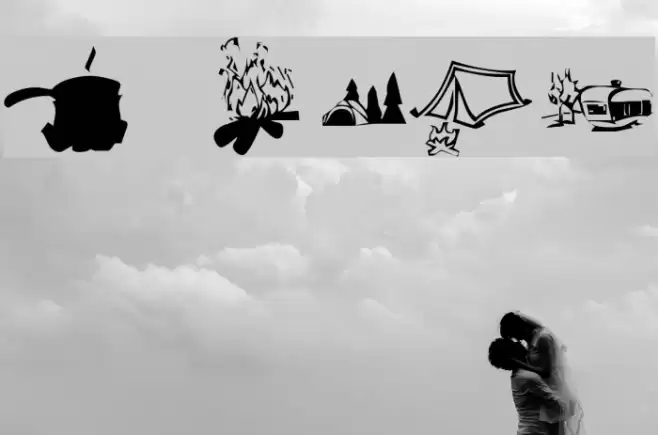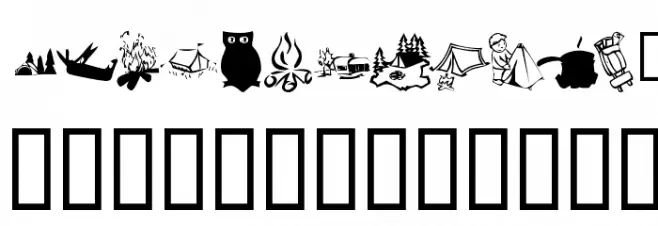
KR Camping Font
KR Camping Description
This is a decorative font featuring a series of camping-themed illustrations. Each character is represented by a unique camping-related icon, such as tents, campfires, trees, and wildlife. The icons are bold and clear, making them easily recognizable and suitable for thematic designs. The style is playful and illustrative, capturing the essence of outdoor adventures and nature. This font is perfect for projects that aim to evoke a sense of exploration and the great outdoors.
A decorative font with camping-themed icons for each character from Uncategorized fonts.
- Proposed Projects: Ideal for outdoor event posters, camping gear branding, adventure-themed invitations, and educational materials about nature.
- Use Case: Logos, Posters, Themed Invitations